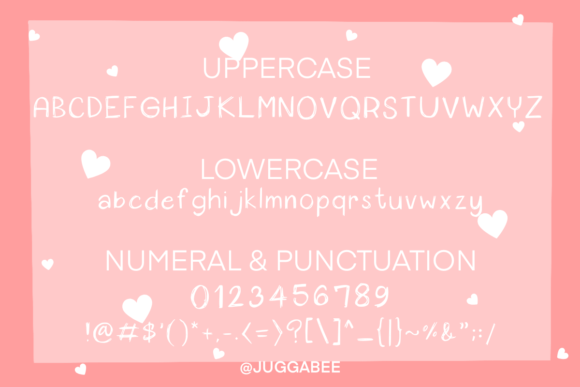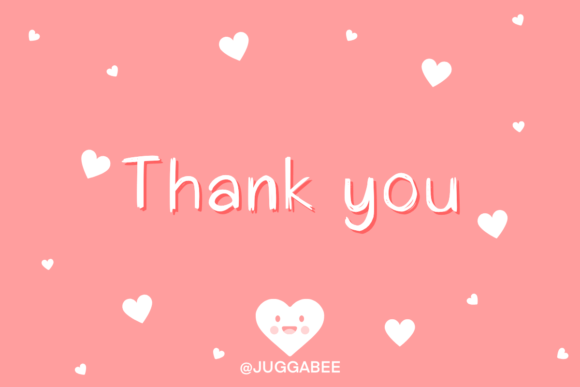
Discover the Charm of Anthony Font: A Sweet and Quirky Handwritten Font
Are you a designer, crafter, or creative looking for a font that can add a touch of personality to your projects? Look no further than Anthony Font, a sweet and quirky handwritten font that’s sure to become a valuable asset in your font library. With its unique charm and versatility, Anthony Font has the potential to elevate any creation, regardless of the topic or theme.
The Characteristics of Anthony Font
Anthony Font is a beautifully crafted handwritten font that exudes warmth and friendliness. Its sweet and quirky characteristics make it perfect for a wide range of projects, from creative crafts and DIY tutorials to digital designs and marketing materials. The font’s unique features include:
- Handwritten style: Anthony Font has a distinctly handwritten feel, with subtle imperfections and variations in letterform that give it a personal touch.
- Quirky charm: The font’s quirky characteristics, such as its playful letterforms and unusual flourishes, add a touch of whimsy and fun to any project.
- Versatility: Anthony Font is highly versatile, making it suitable for a wide range of projects, from formal and informal documents to creative crafts and digital designs.
Why Choose Anthony Font?
So, why should you choose Anthony Font for your projects? Here are just a few reasons:
- Enhance your creations: Anthony Font has the potential to elevate any creation, adding a touch of personality and charm that sets it apart from more generic fonts.
- Stand out from the crowd: With its unique and quirky characteristics, Anthony Font can help you stand out from the crowd and establish a distinctive brand or style.
- Easily readable: Despite its handwritten style, Anthony Font is highly readable, making it suitable for use in a wide range of projects, from body text to headings and titles.
Using Anthony Font in Your Projects
Anthony Font is highly versatile, making it suitable for use in a wide range of projects, including:
- Creative crafts: Use Anthony Font to add a personal touch to your craft projects, such as handmade cards, gift tags, and scrapbook pages.
- Digital designs: Anthony Font is perfect for use in digital designs, such as social media graphics, blog posts, and website headers.
- Marketing materials: Use Anthony Font to add a touch of personality to your marketing materials, such as brochures, flyers, and business cards.
Tips for Getting the Most Out of Anthony Font
To get the most out of Anthony Font, here are a few tips:
- Experiment with different sizes and colors: Anthony Font looks great in a variety of sizes and colors, so don’t be afraid to experiment and find the combination that works best for your project.
- Pair with other fonts: Anthony Font pairs well with a range of other fonts, so try combining it with different fonts to create a unique and interesting effect.
- Use it consistently: To establish a consistent brand or style, use Anthony Font consistently across all your projects and marketing materials.
| Font Name | Anthony Font |
| Author | Juggabee |
In conclusion, Anthony Font is a sweet and quirky handwritten font that’s sure to become a valuable asset in your font library. With its unique charm and versatility, it’s perfect for a wide range of projects, from creative crafts and digital designs to marketing materials and more. So why not give Anthony Font a try and see how it can enhance your creations?